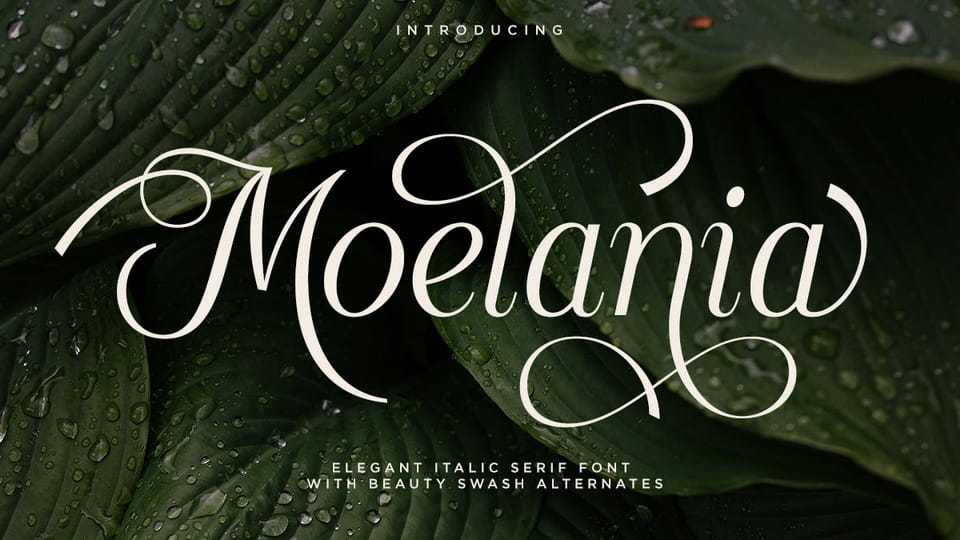
Download Moelania font, a luxurious and elegant italic typeface featuring stylish alternates. It’s perfect for branding, logos, quotes, and posters, and also ideal for wedding invitations.